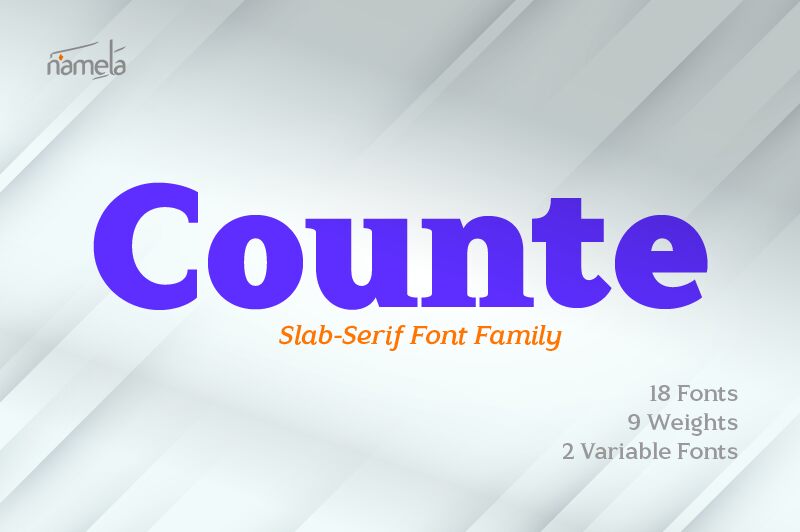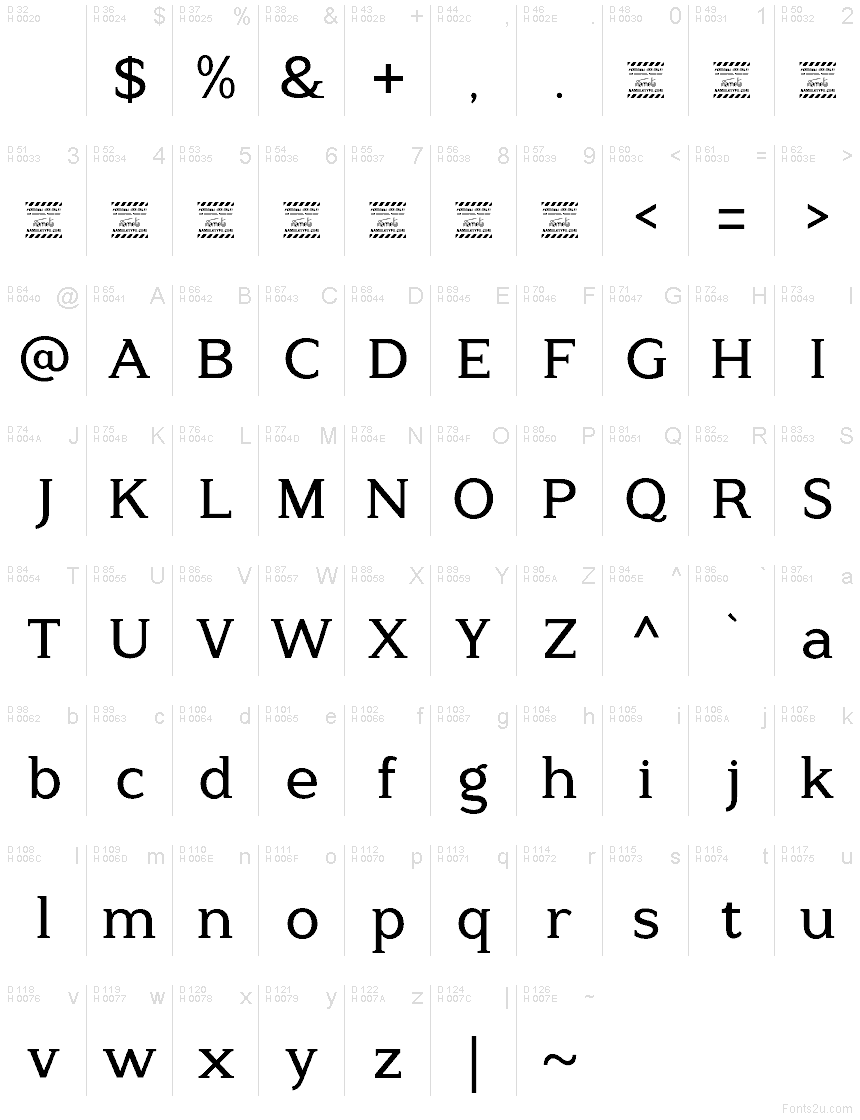
Counte DEMO Regular
Counte font is a modern free serif font. This typeface has been brought to life by Namela Type in an attempt to produce a clean, refined, and contemporary typeface for readers and designers. The font’s narrow stroke widths give it a certain unique charm that sets it apart from other serif fonts.
Text-oriented projects that involve content such as books, magazines, newspapers or articles can make immediate use of Counte as their body or title styles. Other use cases can include brochures, reading-based apps and websites, headings or logos for similarly minded brands and businesses like libraries or open educational resources.